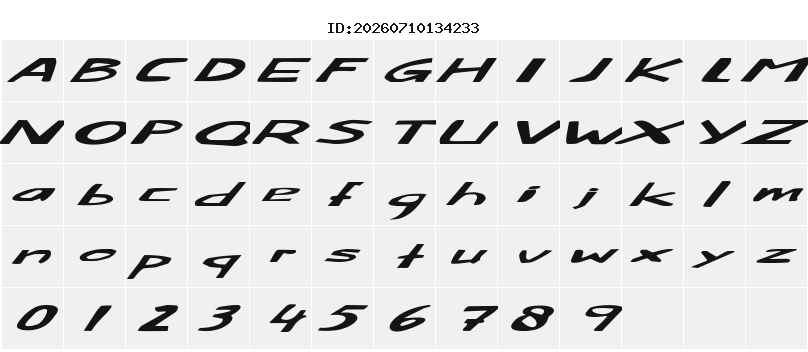
Fat Little Piggy Preview
• Font Name: Fat Little Piggy
• Font ID: DavidKerkhoff: Fat Little Piggy Italic: 2010
• Full Font Name: Fat Little Piggy Italic
• PostScript Name: FatLittlePiggy-Italic
• Designer: David Kerkhoff
• Manufacturer: David Kerkhoff
About Fat Little Piggy.ttf
Fat Little Piggy.ttf is a modern, elegant sans-serif font designed for ultimate readability and visual harmony. Perfect for branding, headlines, web design, and print materials.